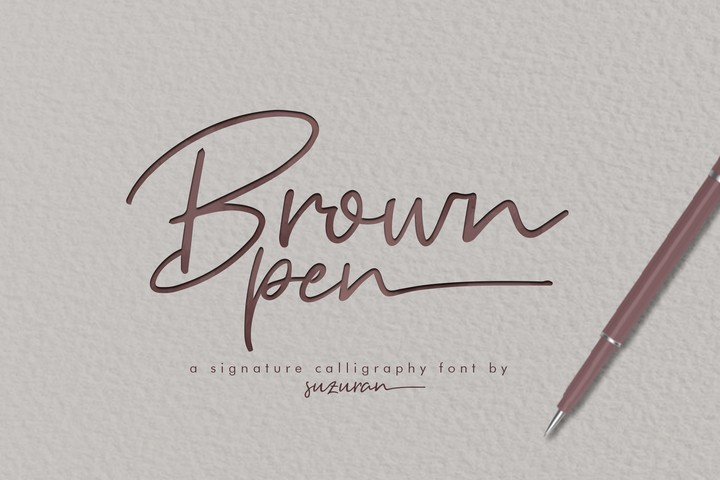
Brown Pen Script Font
Brown Pen Script Font is perfect for vintage branding, coffee shop menus, artisanal packaging, handwritten letters, rustic wedding invitations, craft brewery labels, organic product branding, farmhouse decor, antiquarian book covers, and nostalgic greeting cards.
Brown Pen Script Font is exciting because it captures the warm, intimate essence of handwritten correspondence from bygone eras, creating a typeface that evokes memories and emotional connections. This font brings authenticity and human warmth to any project, making it ideal for brands and designs that want to convey tradition, craftsmanship, and personal touch. Its natural pen strokes and organic variations create a sense of honest communication and artisanal quality.
Brown Pen Script Font family includes regular, medium, and light weights, plus decorative capitals, connecting alternates, and vintage ornaments, providing designers with extensive tools for creating authentic period-appropriate and handcrafted typography.
This charming script typeface combines historical penmanship traditions with contemporary design functionality, making Brown Pen Script Font Free Download a perfect choice for projects celebrating heritage and craftsmanship. The font's natural ink flow patterns and authentic pen pressure variations recreate the genuine experience of vintage handwriting with remarkable digital precision.
Whether you're designing artisanal food packaging, heritage brand identity, or nostalgic marketing materials, Brown Pen Script Font delivers unmatched warmth and authenticity. The font performs beautifully in both digital and print applications, from social media graphics to premium packaging where handcrafted appeal is valued.
Designers love Brown Pen Script Font for its ability to instantly transform modern communications into personal, heartfelt messages that resonate with audiences seeking authentic experiences. The font's vintage character makes it particularly effective for brands emphasizing tradition, quality, and human connection.
Each letterform features subtle imperfections and natural variations that mirror genuine pen-and-ink writing, creating typography that feels genuinely handcrafted rather than artificially generated.